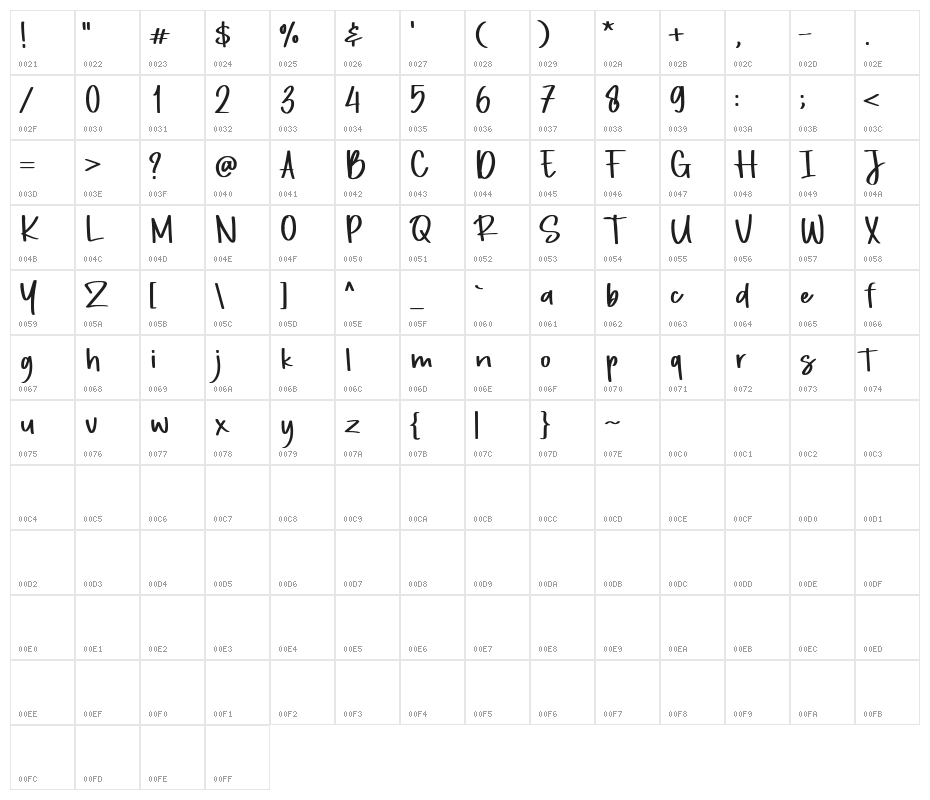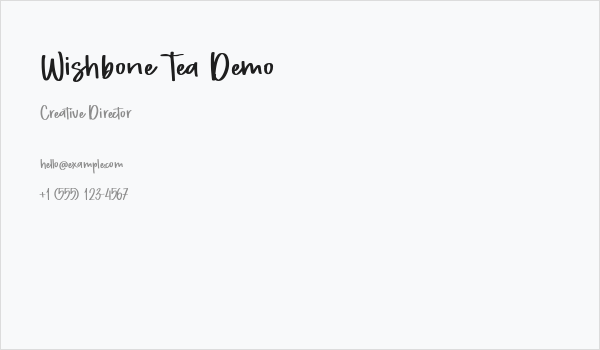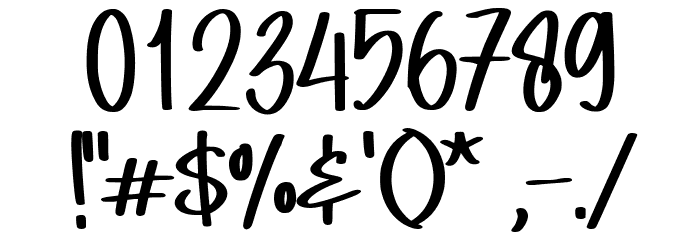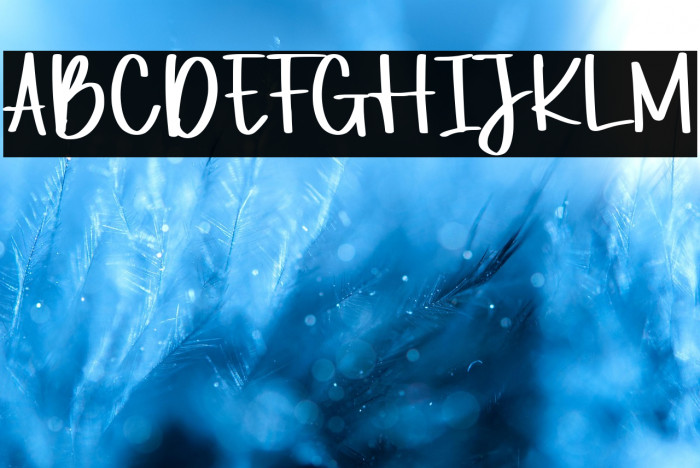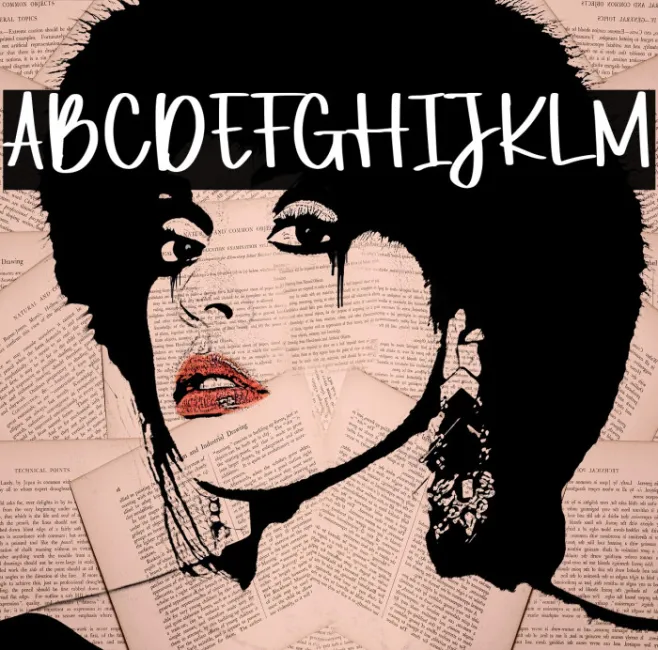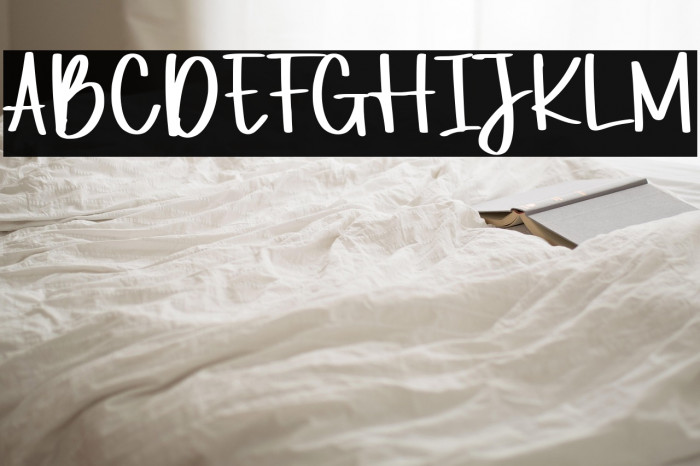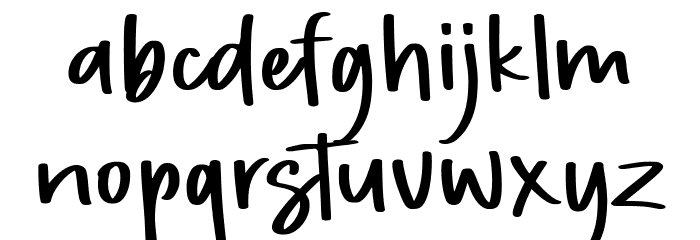
Wishbone Tea Demo Font
Wishbone Tea Demo Description
This font features a playful and casual handwritten style, characterized by its smooth, flowing lines and slightly irregular shapes. The uppercase letters are bold and dynamic, with a slight slant that adds to the informal feel. The lowercase letters maintain a consistent style, with rounded edges and a friendly appearance. Numbers and special characters are crafted with the same playful touch, ensuring a cohesive look across all elements. The overall design is approachable and modern, making it suitable for projects that require a personal and engaging touch.